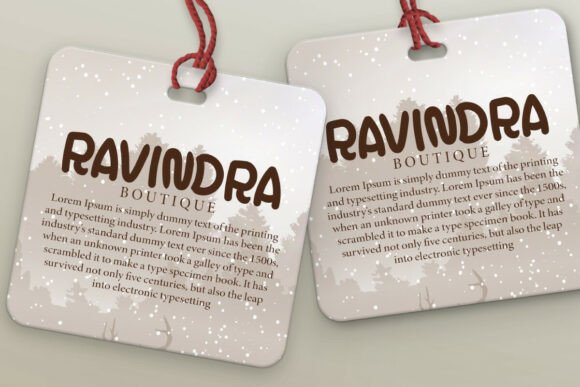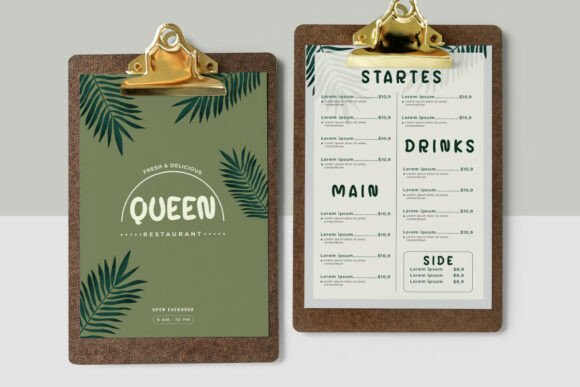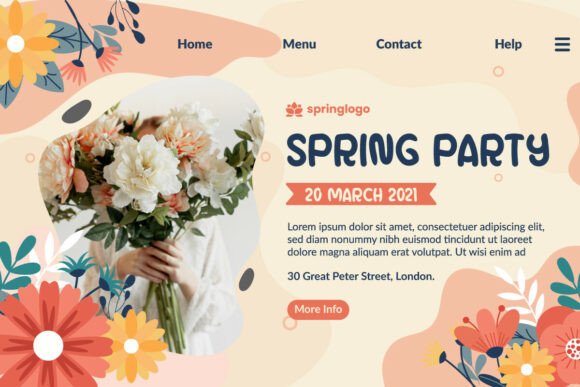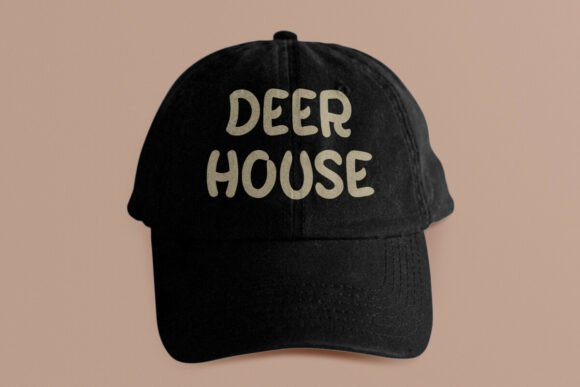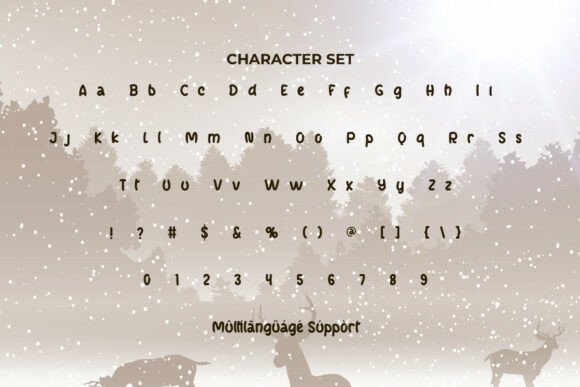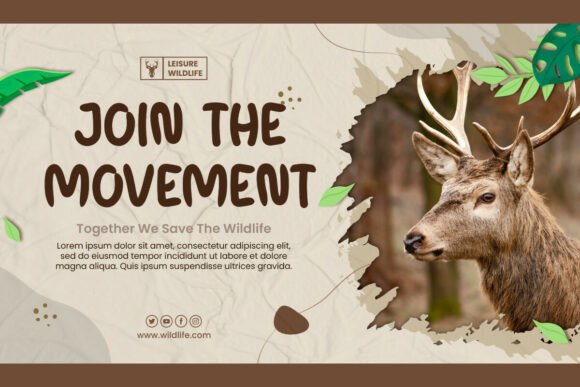
Introducing Deer House Font: The Ultimate Cute and Adorable Fancy Font
Are you a designer or crafter looking for a font that can add a touch of cuteness to your designs? Look no further than Deer House Font! This adorable fancy font is perfect for creating visually appealing designs that are sure to capture the attention of your audience. With its thick and rounded letters, Deer House Font gives a cute impression that’s hard to resist.
What Makes Deer House Font So Special?
Deer House Font is a unique and charming font that’s perfect for a wide range of design projects. Its thick and rounded letters give it a playful and whimsical feel that’s sure to delight. Whether you’re creating a brand image, catalog, cover, custom design, greeting card, invitation, label, menu, poster, product packaging, quote, signage, stationery, or web design, Deer House Font is the perfect choice.
Endless Design Possibilities with Deer House Font
One of the best things about Deer House Font is its versatility. You can use it for any design project that requires a touch of cuteness and charm. Here are some design ideas to get you started:
- Brand Image: Create a memorable brand image with Deer House Font that’s sure to stand out from the crowd.
- Catalog and Brochure: Use Deer House Font to create eye-catching catalogs and brochures that showcase your products in a fun and playful way.
- Custom Design: Add a personal touch to your custom designs with Deer House Font, perfect for creating unique and personalized gifts.
- Greeting Cards and Invitations: Create adorable greeting cards and invitations with Deer House Font that’s sure to delight your friends and family.
- Labels and Packaging: Use Deer House Font to create cute and colorful labels and packaging that will make your products stand out on store shelves.
- Menus and Posters: Create eye-catching menus and posters with Deer House Font that’s sure to grab the attention of your audience.
- Quotes and Signage: Use Deer House Font to create inspiring quotes and signage that’s sure to motivate and uplift.
- Stationery and Web Design: Add a touch of cuteness to your stationery and web design with Deer House Font, perfect for creating a cohesive brand image.
Why Designers and Crafters Love Deer House Font
Deer House Font has quickly become a favorite among designers and crafters, and for good reason. Here are just a few reasons why:
- Easy to Read: Despite its playful and whimsical feel, Deer House Font is easy to read and understand, making it perfect for designs that require a clear message.
- Highly Versatile: Deer House Font can be used for a wide range of design projects, from branding and advertising to packaging and web design.
- Unique and Memorable: Deer House Font is a unique and memorable font that’s sure to leave a lasting impression on your audience.
- Perfect for Kids and Adults Alike: Deer House Font is a font that’s perfect for designs that appeal to kids and adults alike, making it a great choice for a wide range of projects.
- Pair it with Other Fonts: Deer House Font pairs well with other fonts, so feel free to experiment with different combinations to create a unique look.
- Experiment with Colors: Deer House Font looks great in a variety of colors, so don’t be afraid to experiment and find the perfect color scheme for your design.
- Use it for Headings and Titles: Deer House Font is perfect for headings and titles, so use it to add a touch of cuteness to your designs.
- Make it Your Own: Don’t be afraid to get creative and make Deer House Font your own. Experiment with different styles and effects to create a unique look that’s all your own.
In conclusion, Deer House Font is an adorable fancy font that’s perfect for designers and crafters looking to add a touch of cuteness to their designs. With its thick and rounded letters, Deer House Font gives a cute impression that’s hard to resist. Whether you’re creating a brand image, catalog, cover, custom design, greeting card, invitation, label, menu, poster, product packaging, quote, signage, stationery, or web design, Deer House Font is the perfect choice. So why wait? Download Deer House Font today and start creating adorable designs that are sure to capture the attention of your audience!